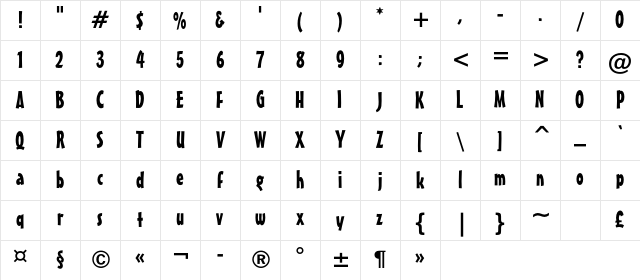
MaestroC Regular Free Font
MaestroC Regular
Design Context for MaestroC
MaestroC is a composed and adaptable typeface that performs quietly and consistently across a wide range of design contexts.